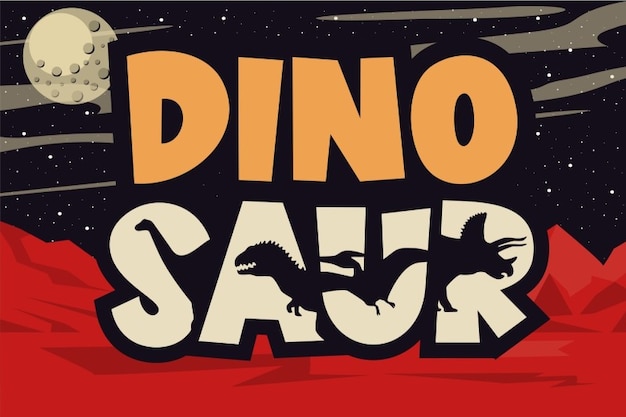
Dino Saur Font
Dino Saur is a playful, prehistoric-themed font inspired by dinosaurs and the Jurassic era. Its rugged, textured letters mimic the shapes and strength of ancient creatures, evoking a wild, adventurous spirit. Perfect for children's books, animal-themed projects, or anything that needs a fun yet fierce edge, Dino Saur brings the untamed world of dinosaurs to life.